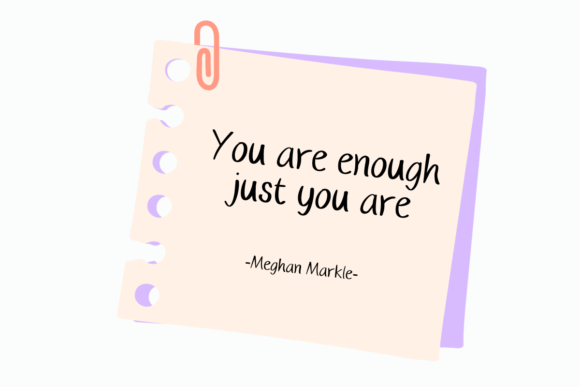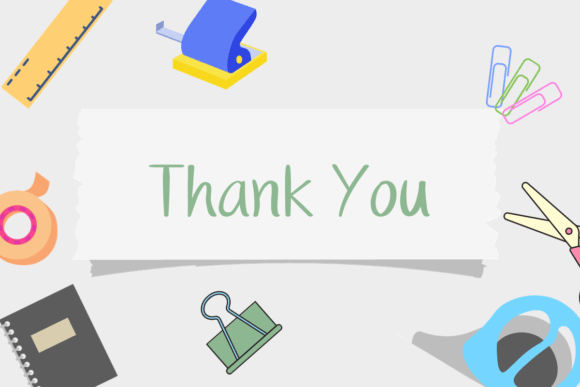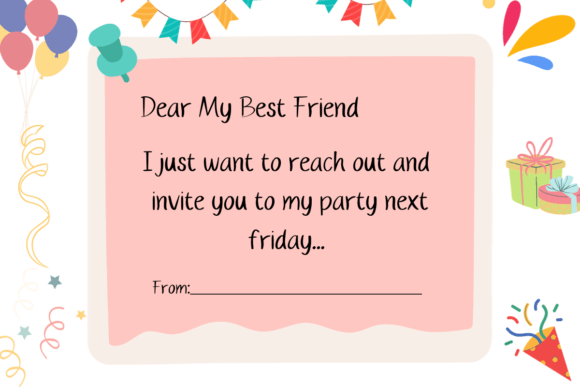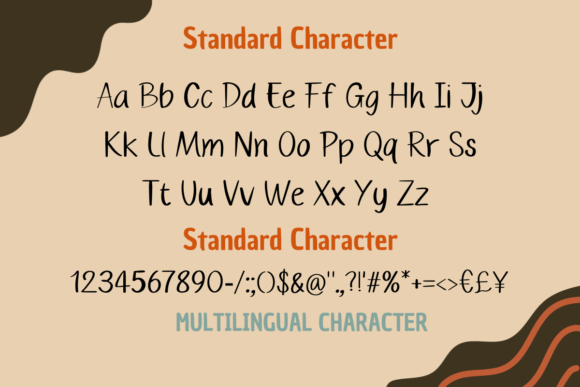
Introducing Challis Burton Font: Elevate Your Designs with Organic Elegance
In the world of digital design, typography plays a crucial role in conveying messages, evoking emotions, and creating lasting impressions. For designers and crafters seeking to infuse their projects with a touch of authenticity and uniqueness, the Challis Burton Font is a game-changer. This digital product redefines the art of typography with its meticulously crafted, hand-stroked letterforms that exude an organic and charming feel.
The Story Behind Challis Burton
Challis Burton is more than just a font; it’s a reflection of the artistry and dedication that goes into creating typography that stands out. Each letter has been carefully hand-crafted to ensure that every stroke, curve, and detail contributes to a cohesive and distinctive look. This level of attention to detail makes Challis Burton perfect for projects where making a statement or evoking a specific atmosphere is paramount.
One of the key advantages of the Challis Burton Font is its incredible versatility. Whether you’re working on:
- Branding: Give your brand a unique voice with a typography that captures its essence.
- Wedding Invitations: Add a touch of elegance and personalization to your wedding invites.
- Motivational Quotes: Inspire your audience with beautifully crafted text that resonates.
- Magazine Layouts: Stand out in the world of print with a font that offers both readability and style.
- Or any other project: From digital content to print materials, Challis Burton adapts seamlessly, making it an invaluable asset in your design toolkit.
Why Choose Challis Burton?
Here are several compelling reasons why designers and crafters are gravitating towards the Challis Burton Font:
- Unique and Organic: Its hand-stroked letterforms offer a freshness that is hard to find in standard fonts.
- Authentic Touch: Bring a sense of craftsmanship and care to your designs, making them more relatable and engaging.
- Easy to Use: Designed to be user-friendly, integrating Challis Burton into your projects is straightforward, even for those with basic design skills.
- Highly Readable: Despite its artistic nature, Challis Burton maintains high readability, making it suitable for both headings and body text.
How to Make the Most of Challis Burton
To truly leverage the potential of the Challis Burton Font, consider the following tips:
- Pair it Wisely: Combine Challis Burton with complementary fonts to create visual hierarchy and interest.
- Experiment with Colors: While the font’s organic feel shines in black and white, exploring different colors can add another layer of depth to your designs.
- Play with Sizes: Don’t be afraid to vary the font sizes to emphasize certain parts of your text and create dynamic compositions.
The Challis Burton Font is a remarkable addition to the world of digital typography, offering designers and crafters a tool that combines uniqueness, versatility, and elegance. Its hand-crafted, organic letterforms are not just visually appealing but also carry the essence of meticulous craftsmanship. Whether you’re aiming to create stunning branding, heartfelt wedding invitations, inspiring quotes, or captivating magazine layouts, Challis Burton provides the perfect blend of form and function. Embrace the art of typography with Challis Burton and elevate your designs to new heights of creativity and sophistication.